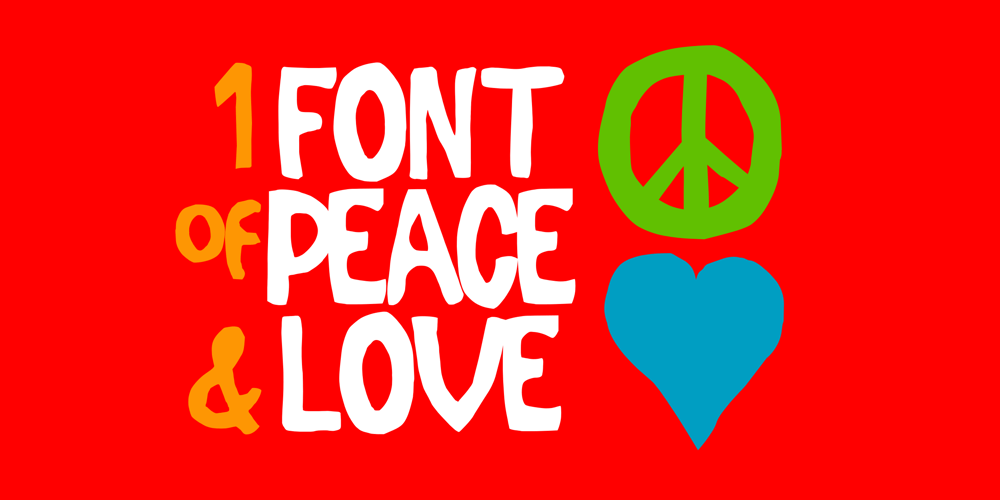
Woodstock Groove Font Family was designed by Pieter van Boekhold and published by TypeR. Woodstock Groove contains 1 styles and family package options. This font is based on the hand cut letters 3 Days of Peace and Music on the iconic Woodstock festival poster. This legendary festival today stands symbol for the spirit of the 60’s and ultimate freedom. The playful and vintage look of Woodstock Groove makes it perfectly fit for use on designs like album covers or retro-themed posters. It adds a touch of the free-spirited energy of the 60’s to any design, taking you to the sunny grass fields of the festival.